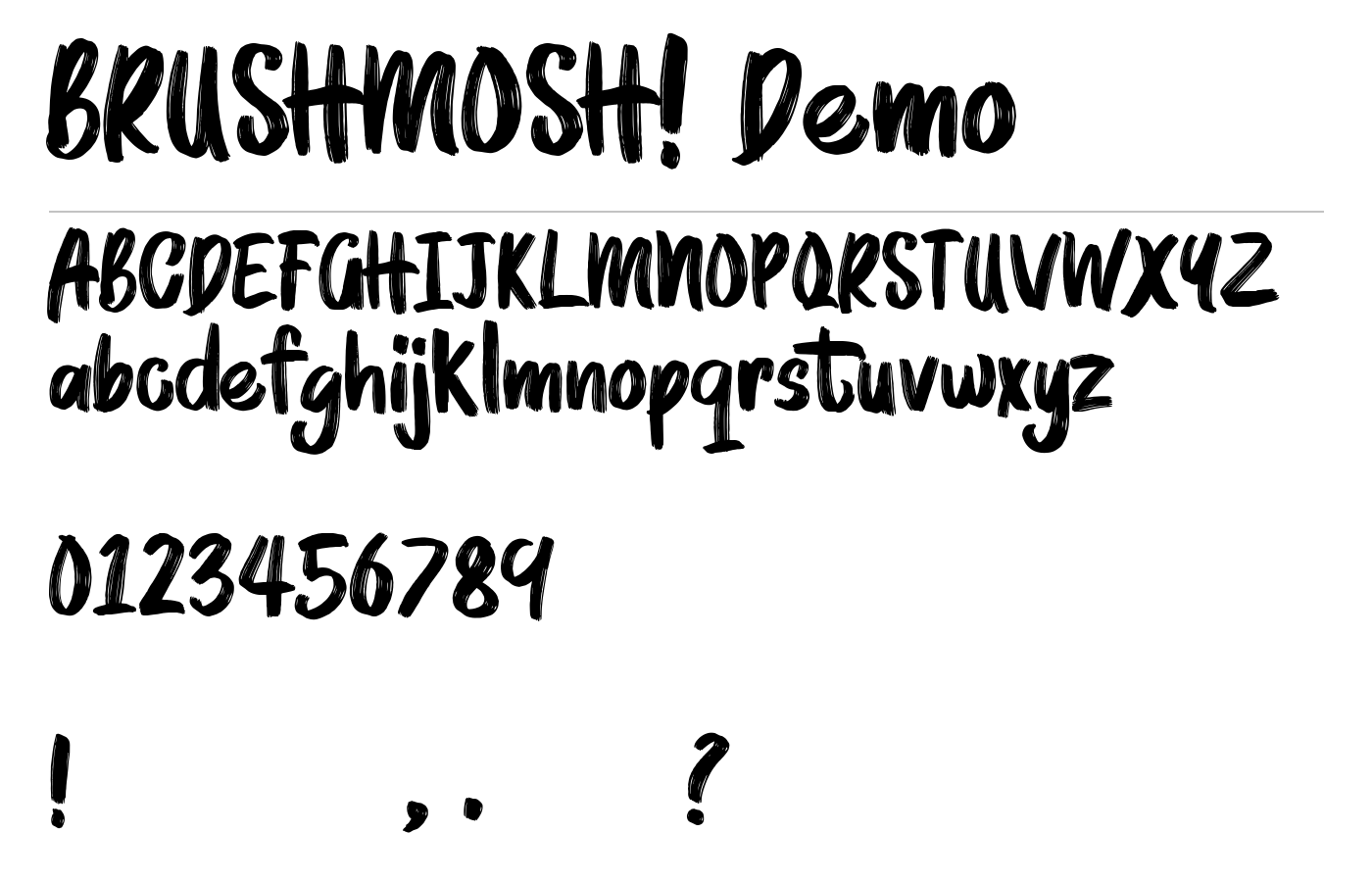
BRUSHMOSH! Demo Font is a bold, brush-style sans serif that captures a lively and handcrafted feel with its thick, uneven strokes and casual letterforms. Its playful, expressive style makes it perfect for eye-catching headlines, logos, and creative projects where a dynamic, artistic vibe is desired. This font works well in designs that want to convey energy and personality without sacrificing readability.
BRUSHMOSH! Demo Font
About BRUSHMOSH! Demo Font